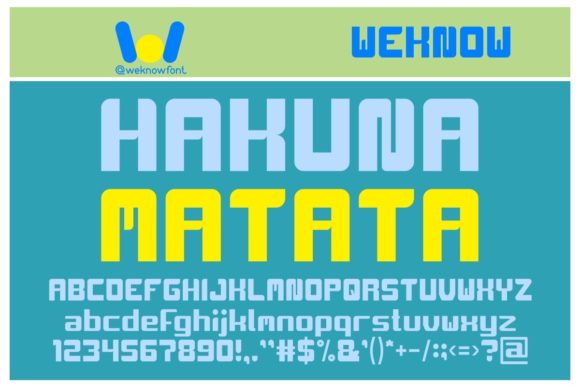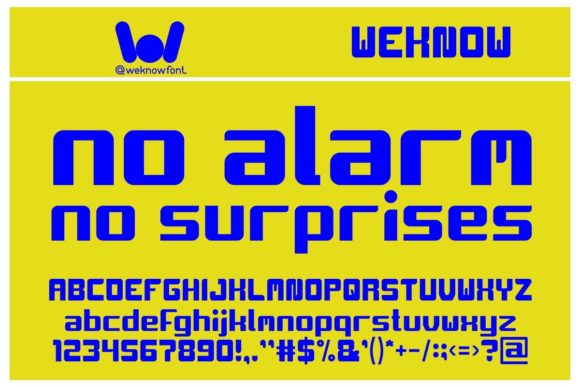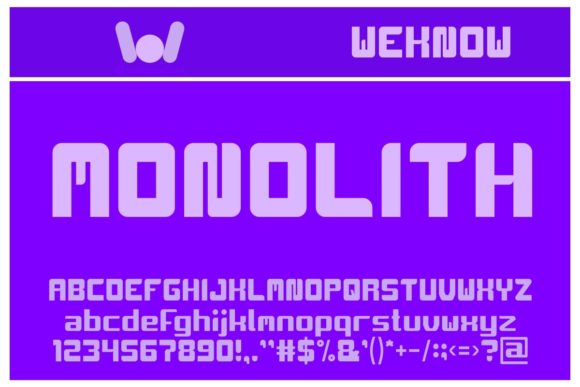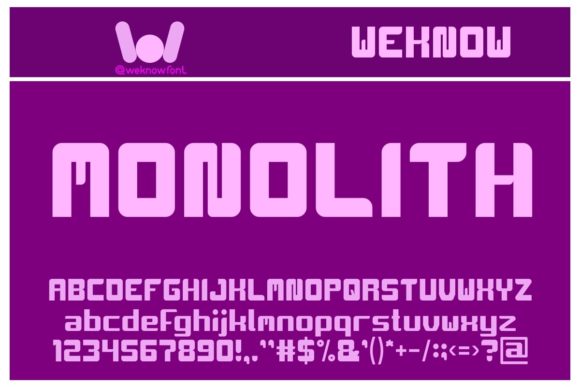
Cinta Adalah Perhatian Font: Elevate Your Designs with Elegance and Sophistication
In the world of design, fonts play a crucial role in conveying the message and aesthetic of a project. For designers and crafters looking for a bold and fancy display font, Cinta Adalah Perhatian is an excellent choice. This stunning font is perfect for a wide range of applications, from logos and apparel to posters, music, movies, games, magazines, books, comics, cartoons, YouTube, Instagram, websites, and any other creative design project.
What Makes Cinta Adalah Perhatian Stand Out?
Cinta Adalah Perhatian is a unique and eye-catching font that exudes elegance and sophistication. Its bold and fancy appearance makes it perfect for designs that require a touch of luxury and glamour. The font’s distinctive style is sure to grab attention and leave a lasting impression on your audience.
Key Features of Cinta Adalah Perhatian Font
- Bold and Fancy Display Font: Cinta Adalah Perhatian is designed to make a statement with its bold and fancy appearance.
- High Versatility: This font is suitable for a wide range of applications, from print to digital media.
- Elegant and Sophisticated: The font’s unique style adds a touch of elegance and sophistication to any design.
- Attention-Grabbing: Cinta Adalah Perhatian is sure to grab attention and leave a lasting impression on your audience.
Use Cases for Cinta Adalah Perhatian Font
Cinta Adalah Perhatian is a versatile font that can be used in various design projects, including:
- Logos: Create a bold and memorable logo for your brand with Cinta Adalah Perhatian.
- Apparel Industry: Use this font to create eye-catching designs for t-shirts, hoodies, and other apparel.
- Posters: Add a touch of elegance and sophistication to your posters with Cinta Adalah Perhatian.
- Music and Movie: Use this font to create bold and attention-grabbing titles for music albums, movie posters, and more.
- Games and Comics: Add a touch of excitement and adventure to your game or comic book designs with Cinta Adalah Perhatian.
- Magazines and Books: Use this font to create eye-catching headlines and titles for your magazine or book.
- Cartoon and YouTube: Create engaging and attention-grabbing thumbnails for your YouTube videos or cartoon designs.
- Instagram and Website: Use Cinta Adalah Perhatian to create bold and elegant text for your Instagram posts or website headers.
Tips for Using Cinta Adalah Perhatian Font
To get the most out of Cinta Adalah Perhatian, here are some tips to keep in mind:
- Use it Sparingly: Due to its bold and attention-grabbing nature, use Cinta Adalah Perhatian sparingly to avoid overwhelming your design.
- Pair it with Other Fonts: Experiment with pairing Cinta Adalah Perhatian with other fonts to create a unique and visually appealing design.
- Adjust Font Size and Color: Play around with different font sizes and colors to find the perfect combination for your design.
Cinta Adalah Perhatian is a stunning bold and fancy display font that can elevate your designs with elegance and sophistication. Its versatility and attention-grabbing nature make it perfect for a wide range of applications. By following the tips outlined above, you can get the most out of this amazing font and create designs that leave a lasting impression on your audience.